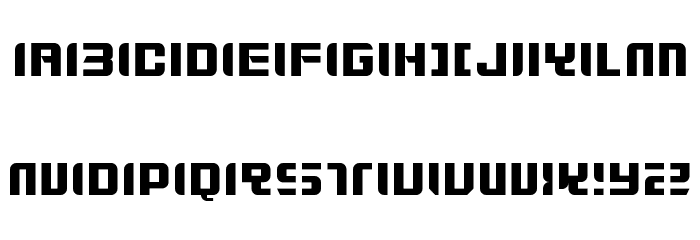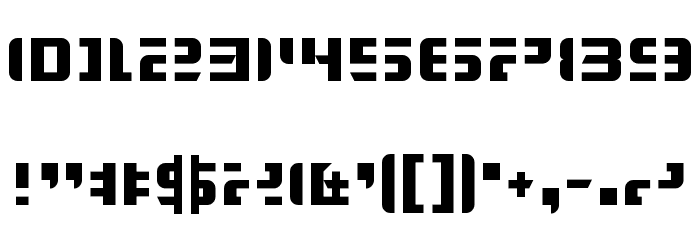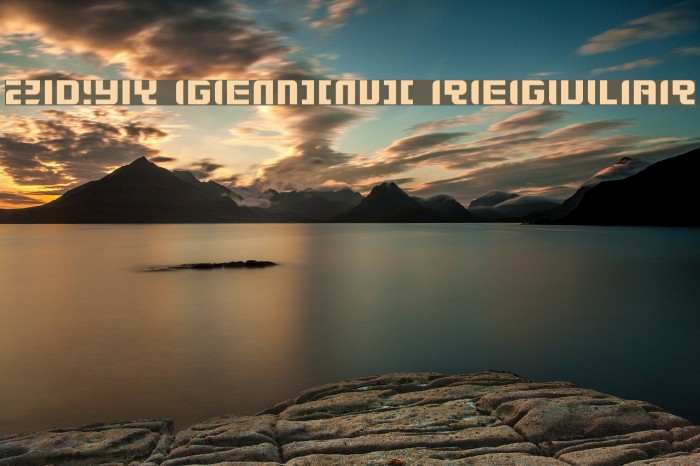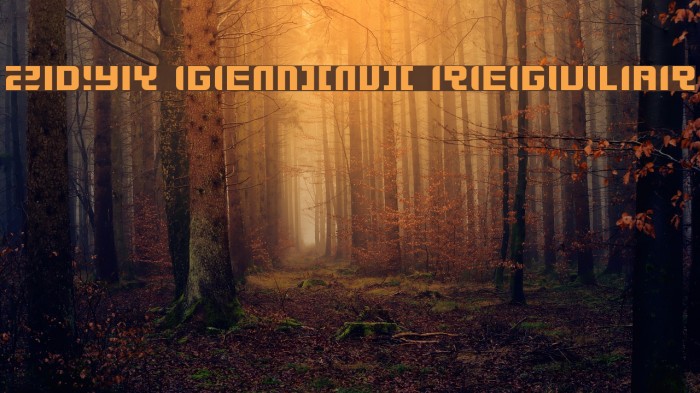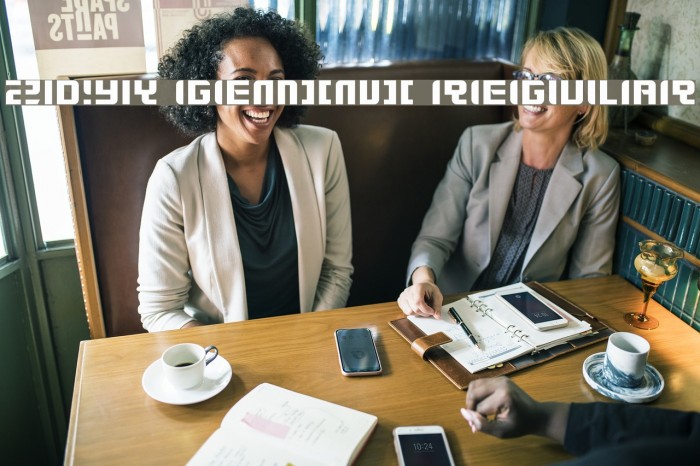
Zdyk Gemini Regular Font
This font features a bold, geometric design with a futuristic aesthetic. The characters are constructed with thick, block-like shapes, creating a strong visual impact. The uppercase and lowercase letters share a consistent style, emphasizing uniformity and modernity. The numerals and special characters maintain the same boldness, ensuring cohesive design across all elements. The font's distinct, angular forms make it ideal for attention-grabbing headlines and display purposes.
A bold, geometric font with a futuristic and modern design.
- Proposed Projects: Ideal for sci-fi themed posters, technology branding, video game titles, and futuristic event flyers.